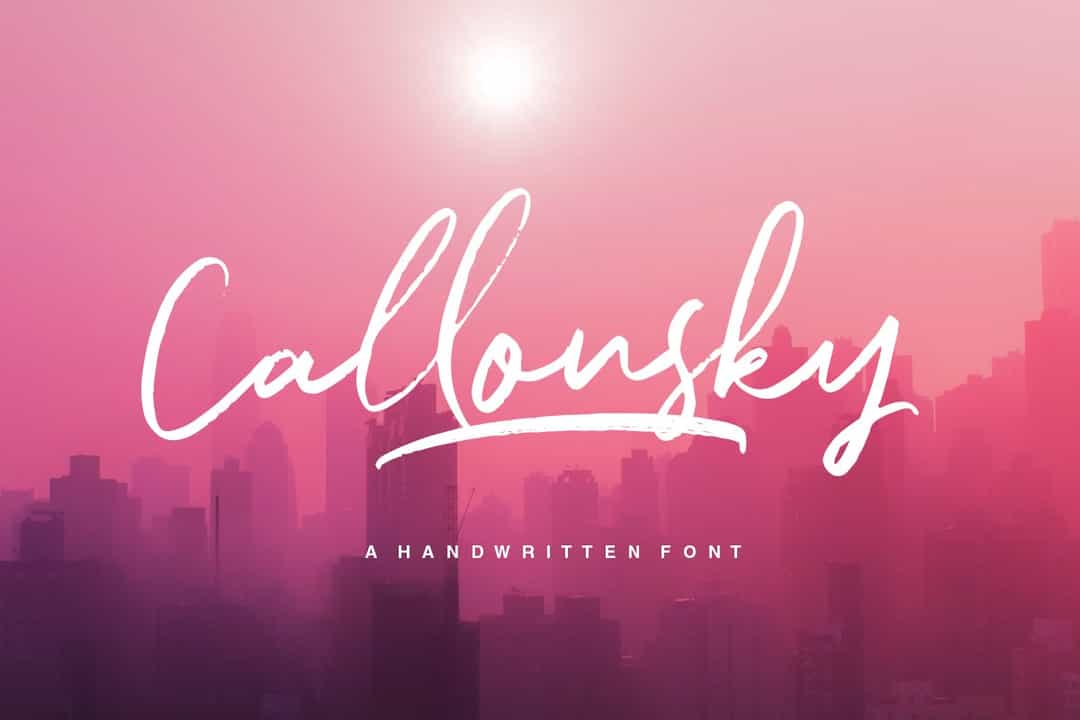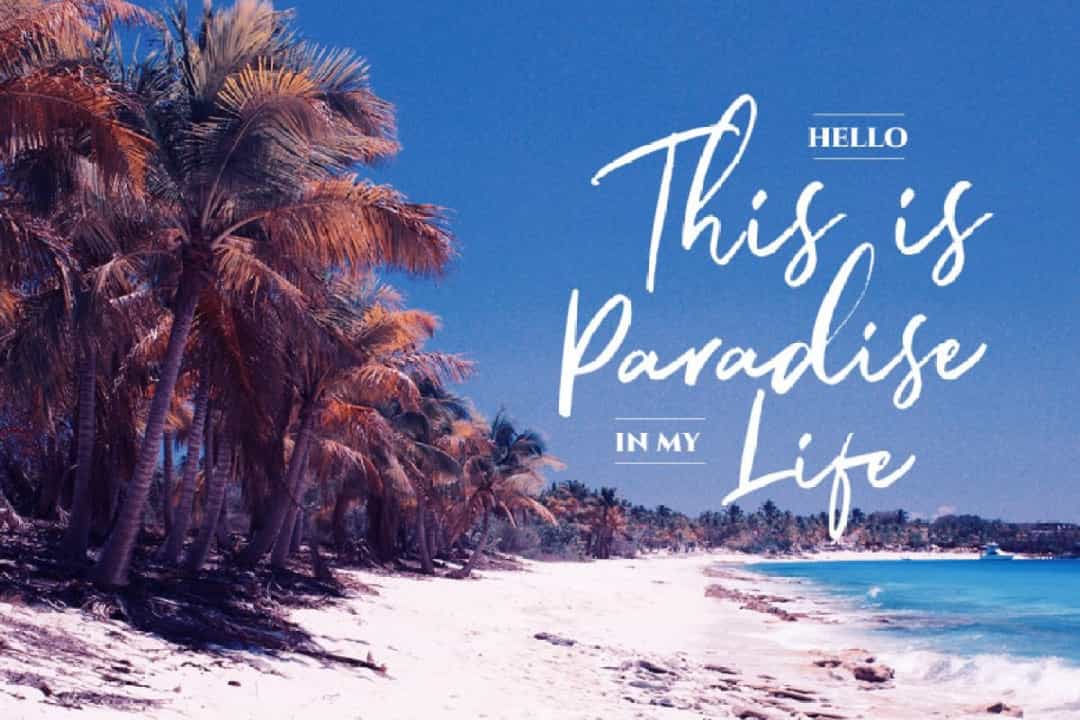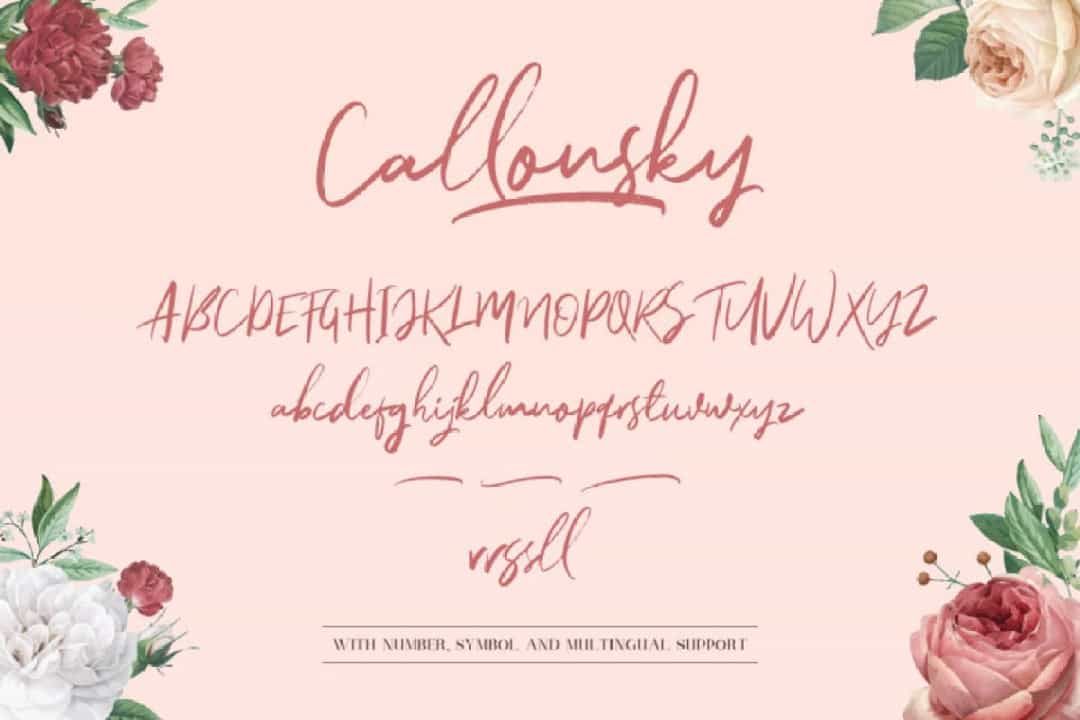
Discover Callonsky Font, part of the Brush collection—a versatile and unique font perfect for adding a personal touch to your projects. Download it for free and enjoy crafting designs with style, from invitations to social media posts. This font is available exclusively for personal use, giving you the freedom to create without limits. Unlock your creativity with Callonsky Font today!
Callonsky is an elegant brush script font featuring an organic yet unnatural baseline, perfect for titles design such as invitations, apparel such as book tittles and stationery, quotes branding greeting cards logos packaging designs posters and many others.